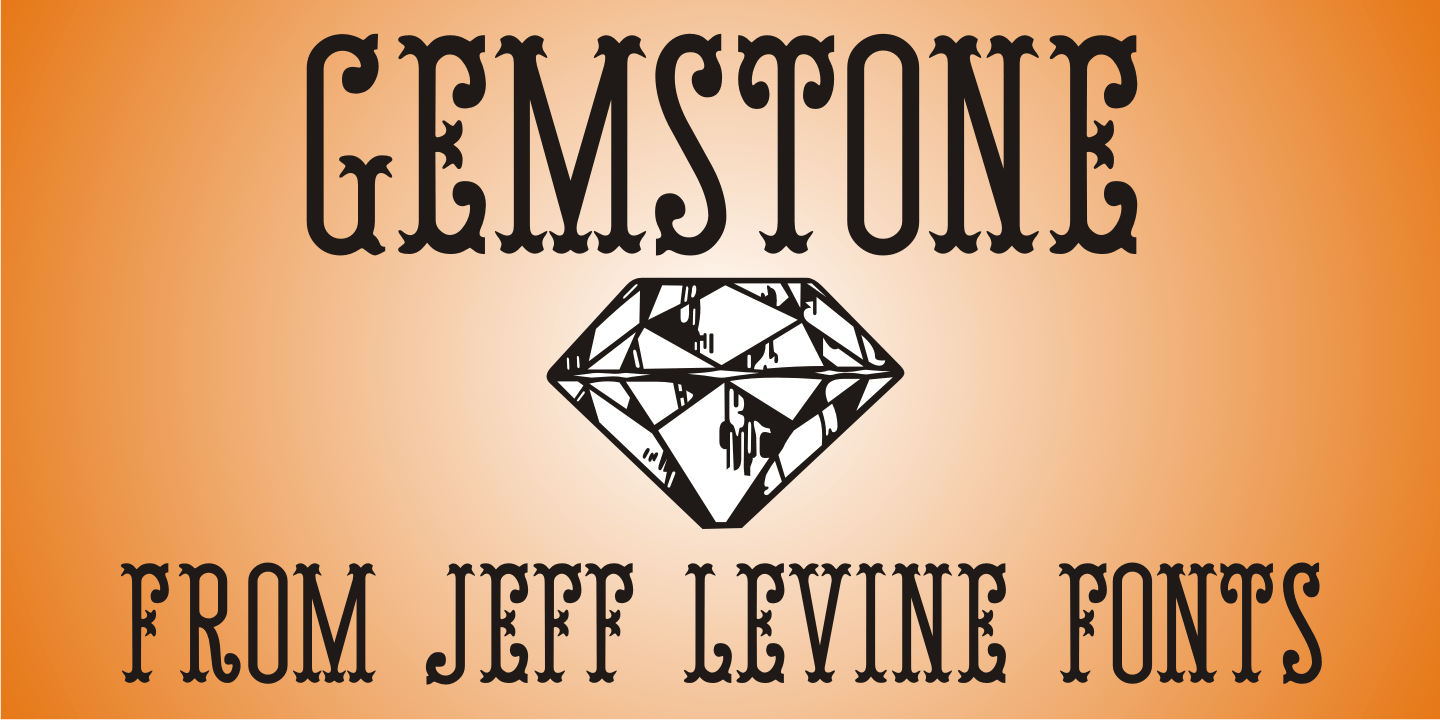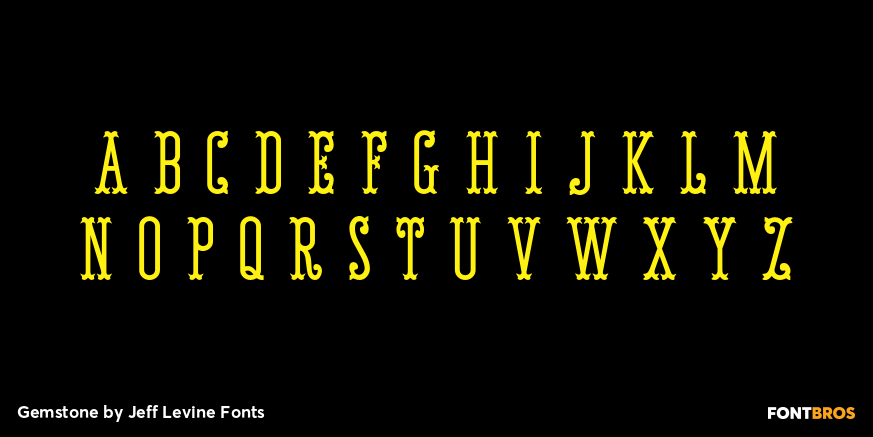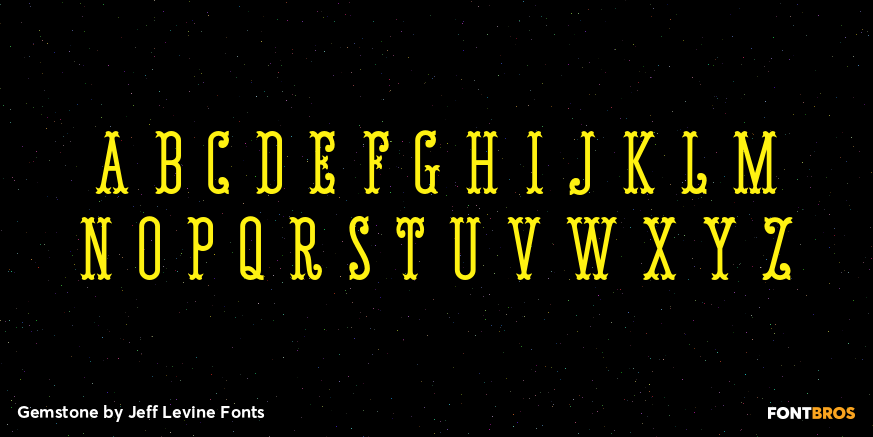
Gemstone
A late-19th Century song book entitled 'Gems of Scotland – A Beautiful Collection of Scottish Songs” had the words 'Gems of Scotland' hand lettered in an ornate, condensed type style now reproduced digitally as Gemstone JNL.